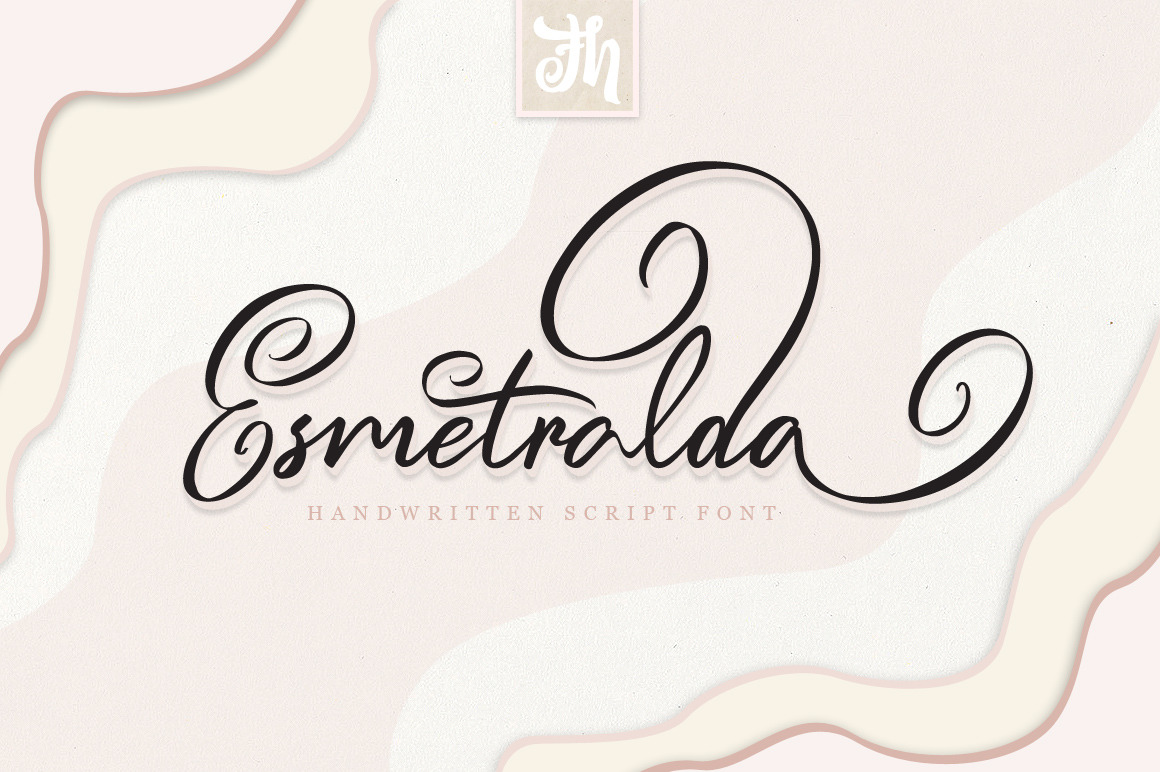
Esmetralda - Handwritten Font
Esmetralda is Script Font with Handlettering Modern Calligraphy Style, with opentype feature include of the font. Suitable for design, element design, wedding, event, t-shirt, logo, badges, sticker, and awesome work, etc...
Unique style fonts